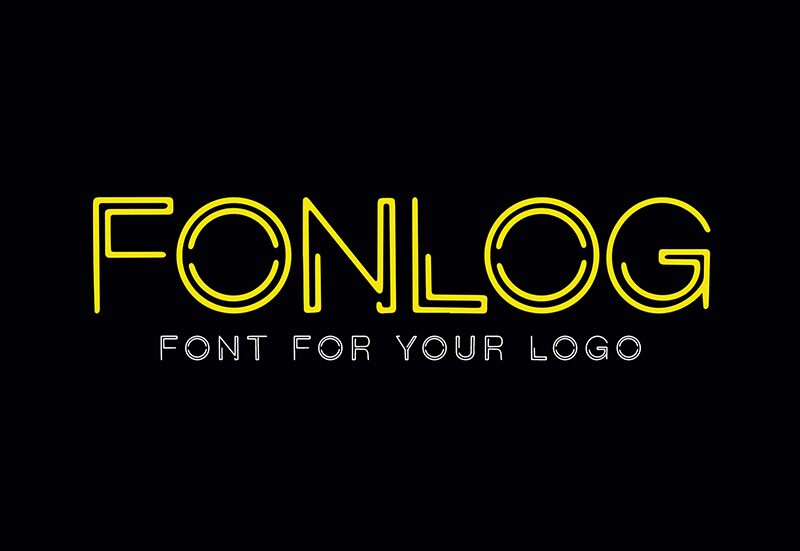
FONLOG by Ngefont Studio is a sleek and modern display font that adds a futuristic touch to any project. Its semi-light weight gives it a clean and minimalistic look, making it suitable for various designs such as tech startups, fashion brands, and even sci-fi movie titles. The sharp edges and unique letterforms of FONLOG are perfect for creating attention-grabbing headlines, logos, and posters. Its versatility allows it to be used in both digital and print mediums. Elevate your designs with FONLOG's futuristic style that will surely make your work stand out from the rest.
FONLOG — Schriftpräsentation